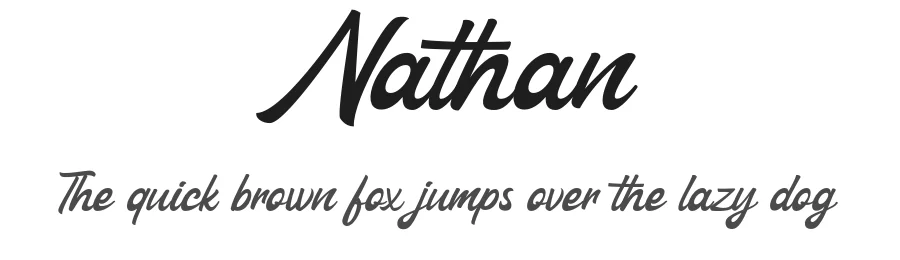
An eye-catching font for big display and taglines!. A good choice for Logo, company slogan, ads, social media post, story, working for both digital and print stuff. Try this font and make your design stand up!
Spotlight Font is a script font that shines as a display or heading face. Pair it with a clean sans-serif or serif font for body text β the contrast creates a clear hierarchy while the two styles stay balanced and easy to read.